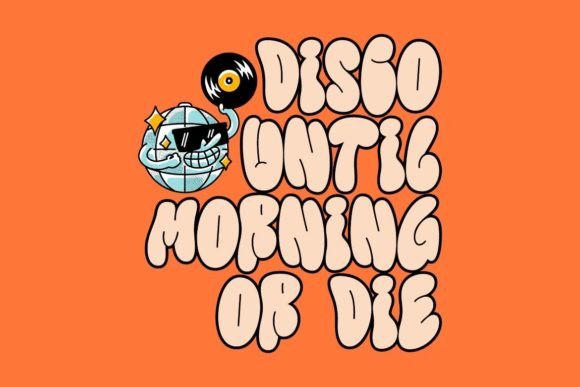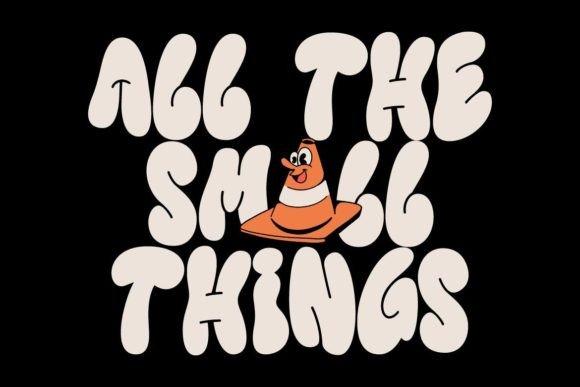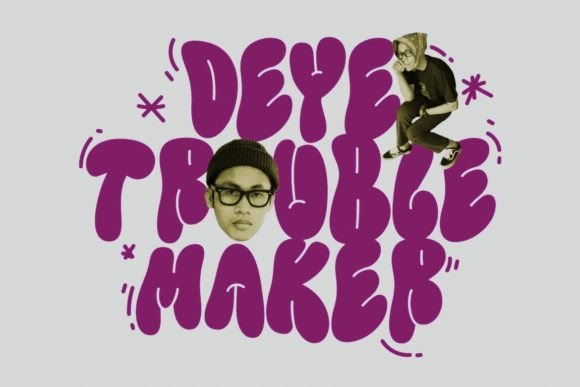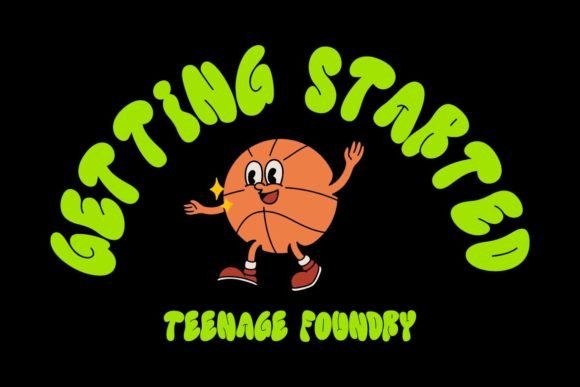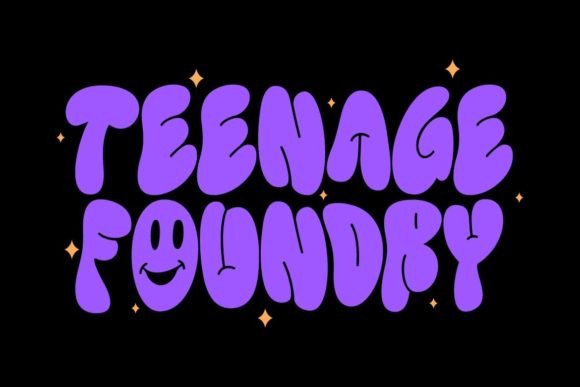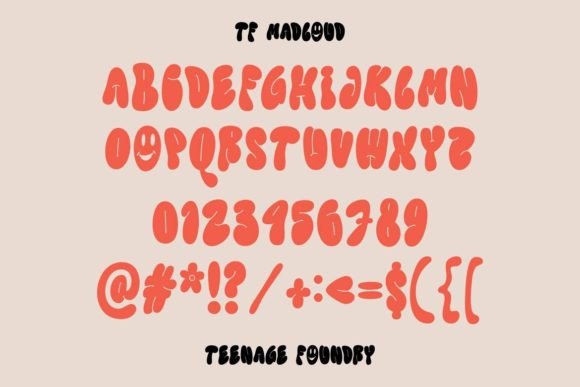
Introduction to Madcloud Font
Remember that moment when you stumbled upon the perfect font for your design project? The one that made your idea pop and stood out from the crowd? For designers, finding that elusive font can be a game-changer. It’s the difference between a good design and a great one. And that’s exactly what we’re excited to share with you today – the Madcloud Font, a bold and playful graffiti font that’s sure to take your creative projects to the next level.
With its thick, rounded letters and hand-drawn style, the Madcloud Font is the perfect design resource for anyone looking to add an eye-catching touch to their work. Whether you’re working on a logo, social media graphics, or even a free download for your website, this font is guaranteed to grab attention and communicate a fun, carefree vibe. And the best part? It’s available for free download, making it an accessible and high-quality addition to any design arsenal.
Key Features of Madcloud Font
- High-quality design resource perfect for creative projects, offering a unique and elegant style.
- Supports a wide range of languages, making it an ideal choice for multilingual creative projects.
- Comes with a comprehensive character set, including uppercase and lowercase letters, numbers, and punctuation marks.
Honest Review: Madcloud Font
I recently stumbled upon the Madcloud Font while searching for a high-quality design resource to elevate my creative project. I was pleasantly surprised by the result.
- ✨ The font has a unique, modern aesthetic that adds a touch of sophistication to any design.
- ✨ The high-quality design ensures that the font looks great on any background, including transparent backgrounds.
- ⚠️ The font may not be suitable for all design projects, as it can be quite bold and overpowering.
- ⚠️ Some users may find the font to be too trendy, which could make it seem dated in the future.
Overall, I’m impressed with the Madcloud Font. While it may not be perfect for every project, it’s an excellent choice for designers looking to add a touch of modernity to their designs. I’d definitely recommend it as a free download for any design resource library.
Tips for Getting the Most Out of Madcloud Font
Here are some tips for getting the most out of Madcloud Font:
- Use Madcloud Font in combination with other design elements to create a cohesive look.
- Experiment with different font sizes and styles to add visual interest.
- Use Madcloud Font in creative projects such as logos, brochures, and social media graphics.
Common Use Cases for Madcloud Font
Here are some common use cases for Madcloud Font:
- Choose a high-quality image with a simple background.
- Use the Madcloud Font to add the quote in a bold, eye-catching font.
- Pair the Madcloud Font with a simple, minimalist background to let the font be the focal point.
- Use a high-contrast color scheme to make the font stand out.
- Choose a vintage-inspired background with a distressed texture.
- Use the Madcloud Font to add the invitation text in a bold, playful font.
- Pair the Madcloud Font with a distressed texture background to create a vintage look.
- Use a bright, bold color scheme to make the font stand out.